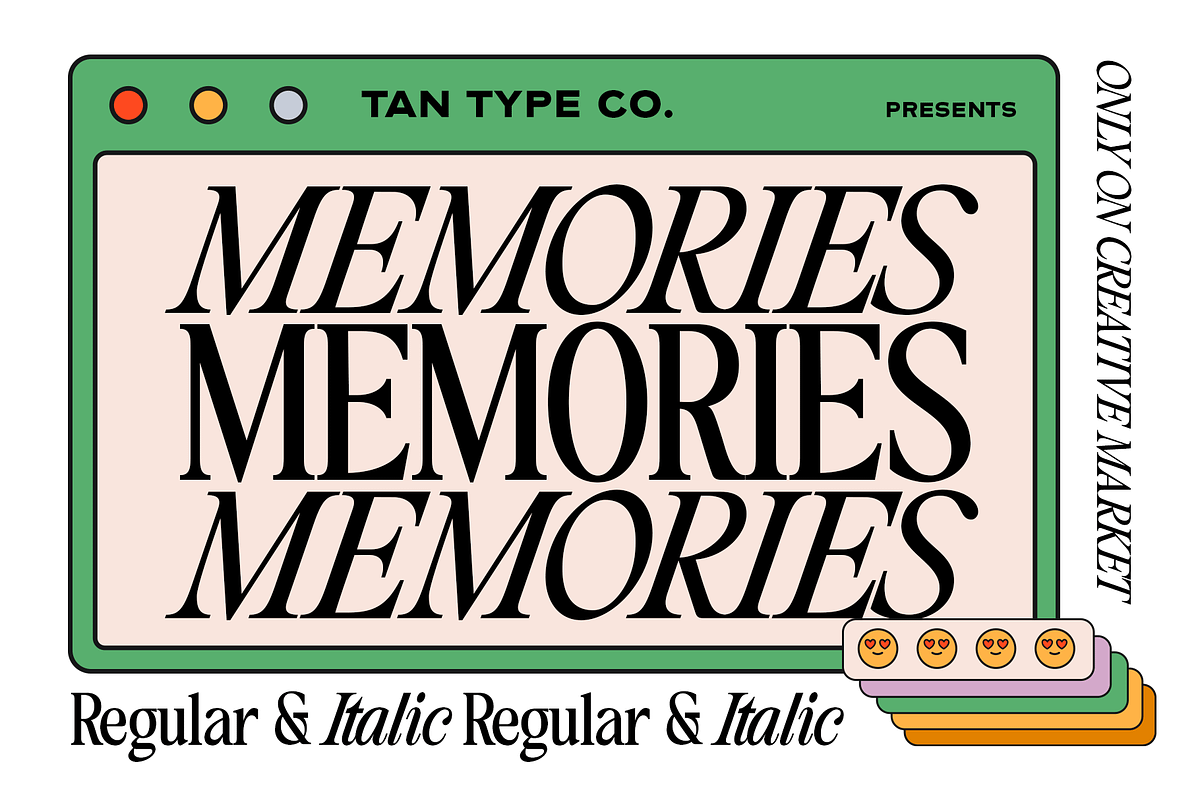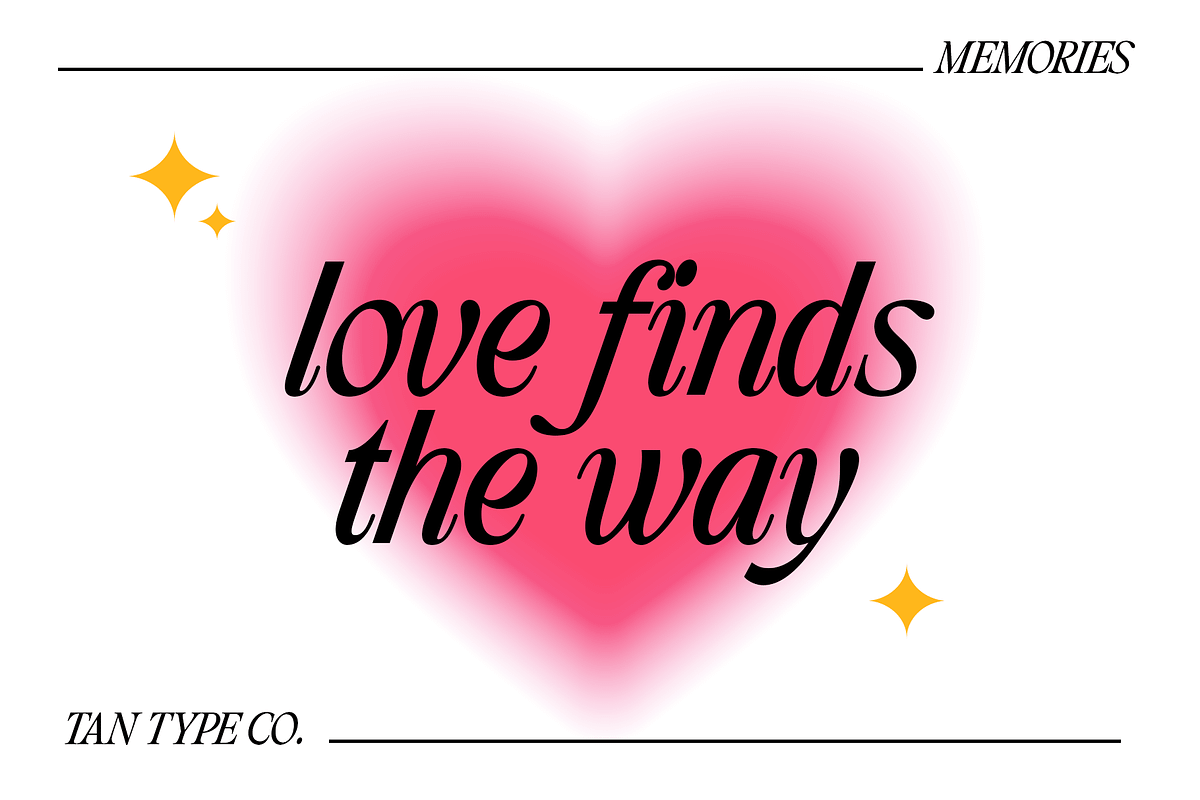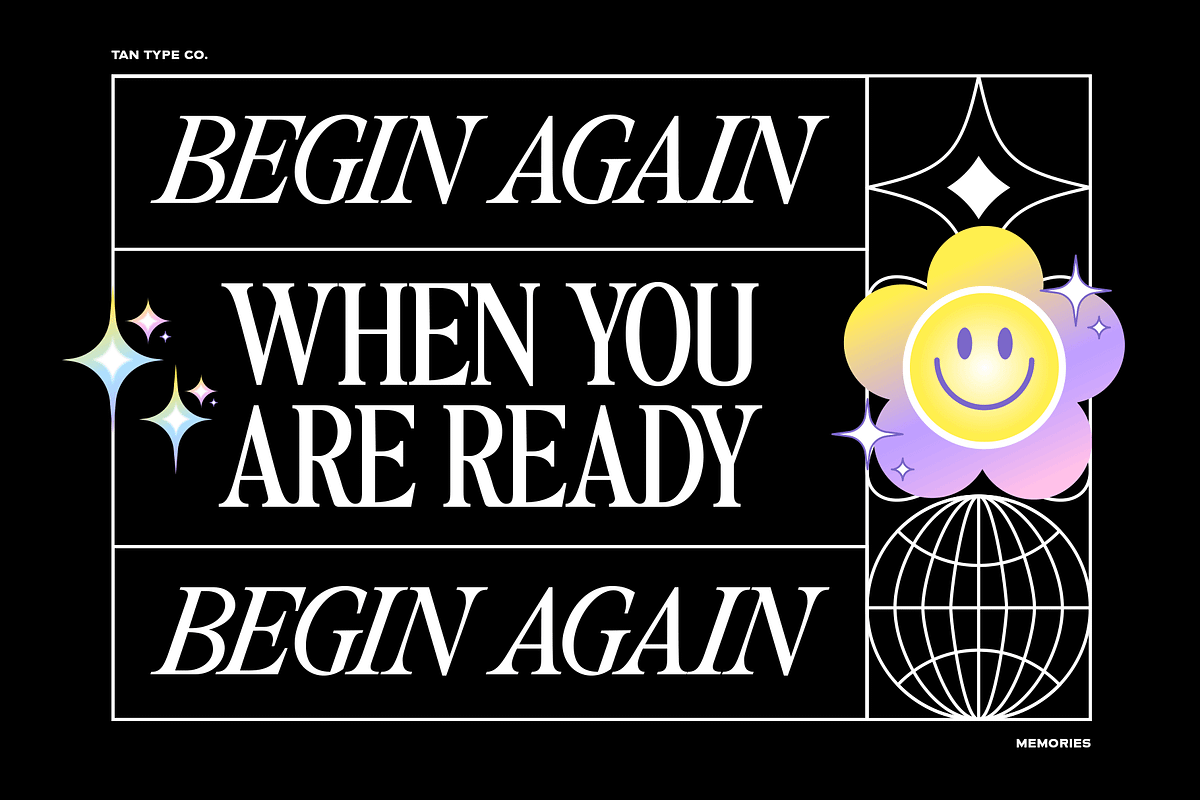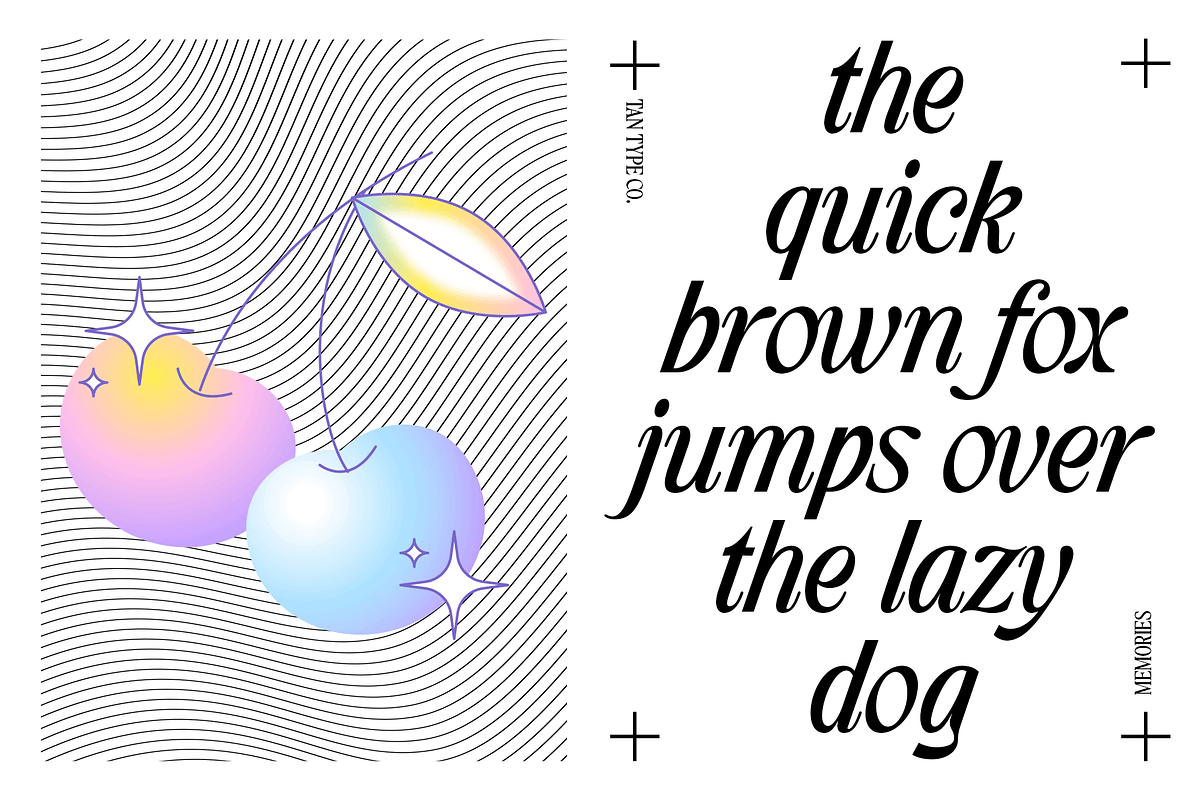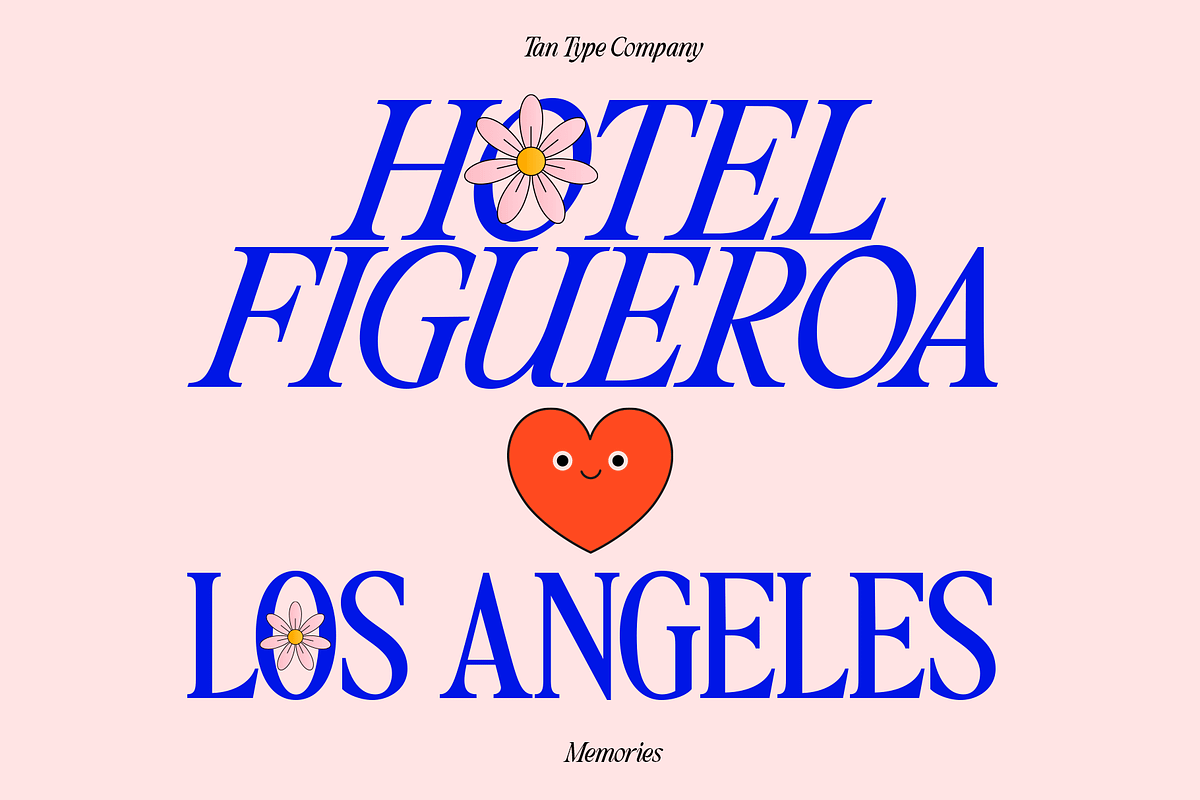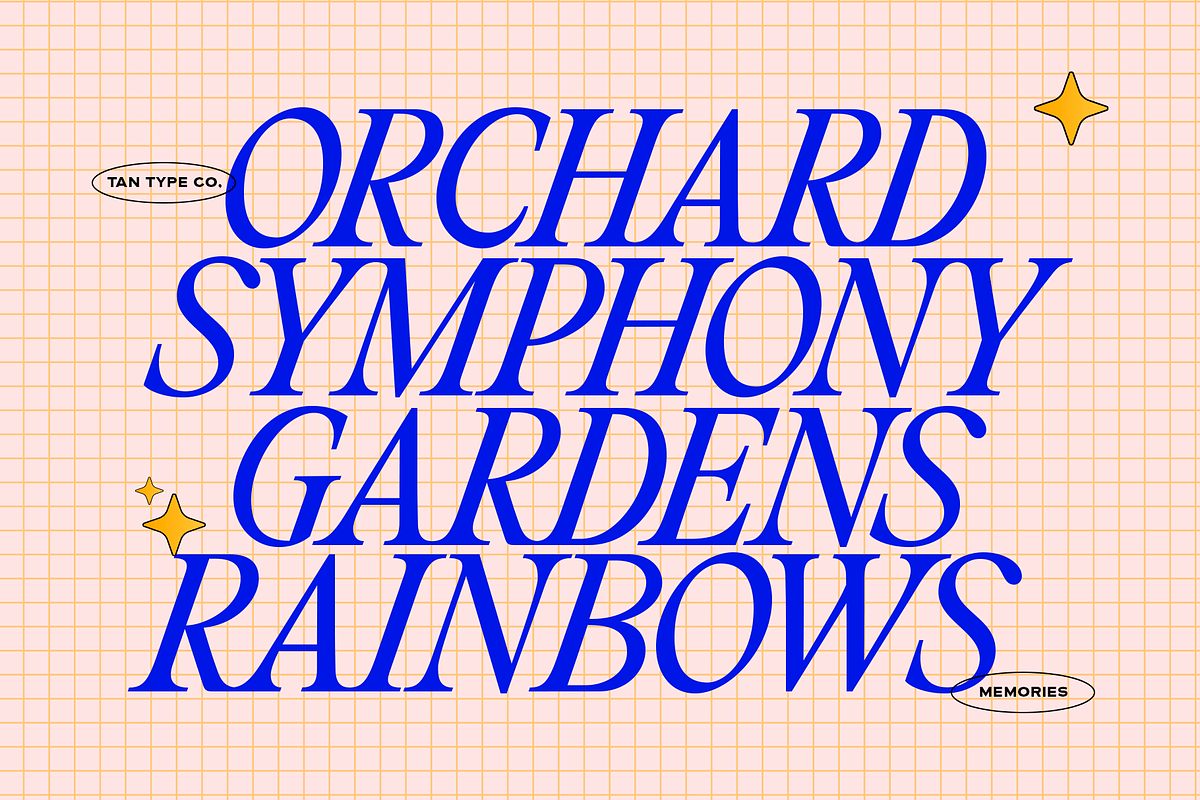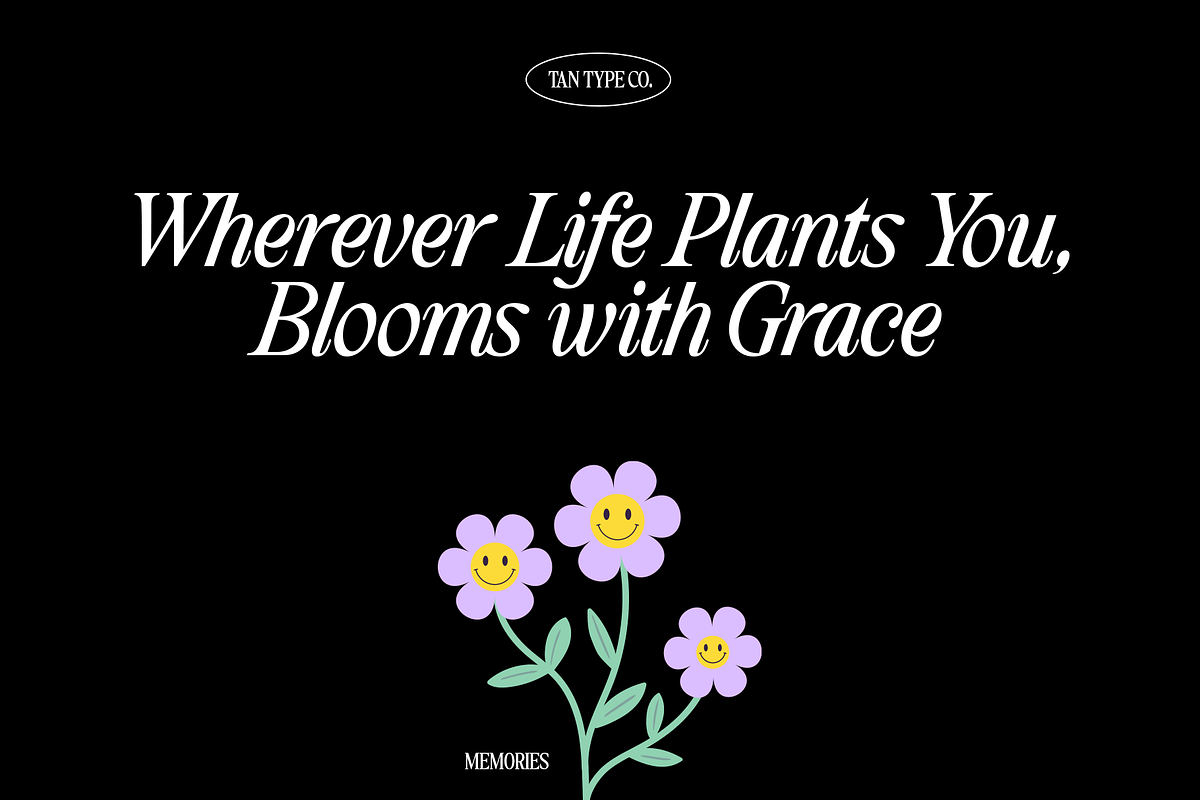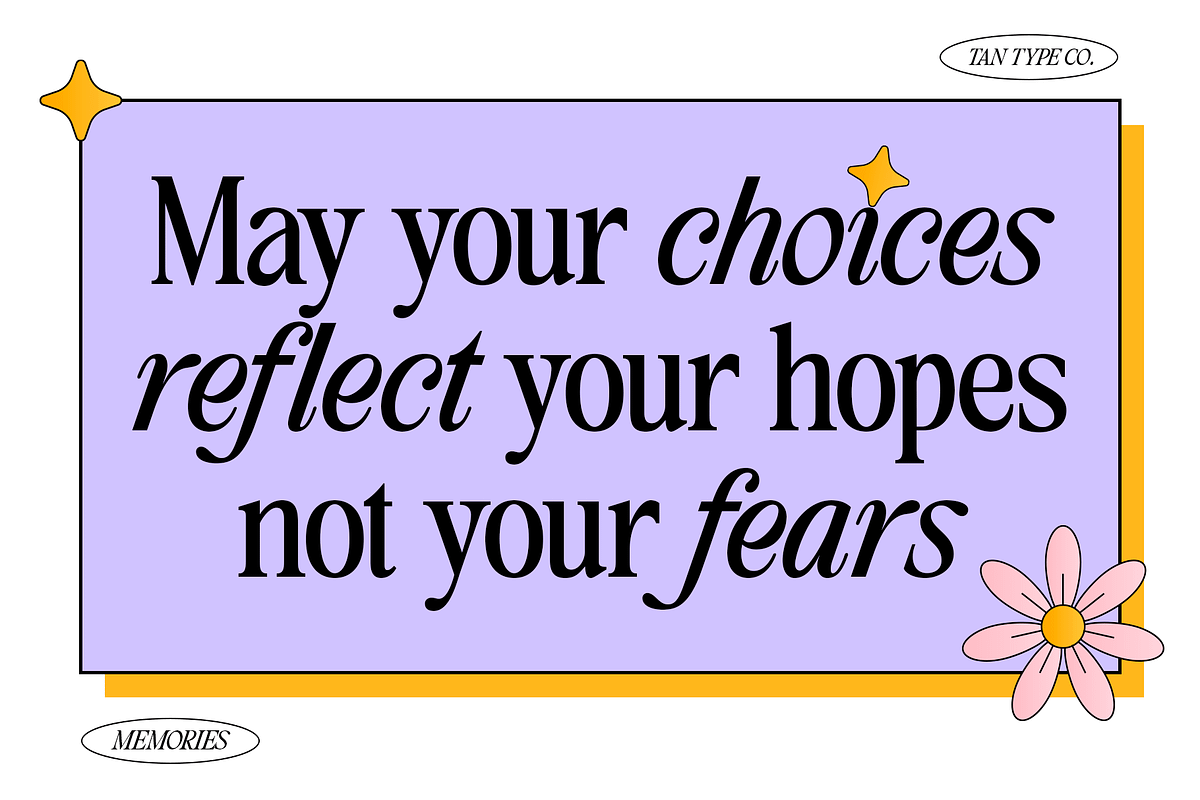
TAN - MEMORIES
TAN - MEMORIES is a classic serif typeface with tight kerning. Perfect as a compliment for our display typefaces or a standalone when you need subtler mood.